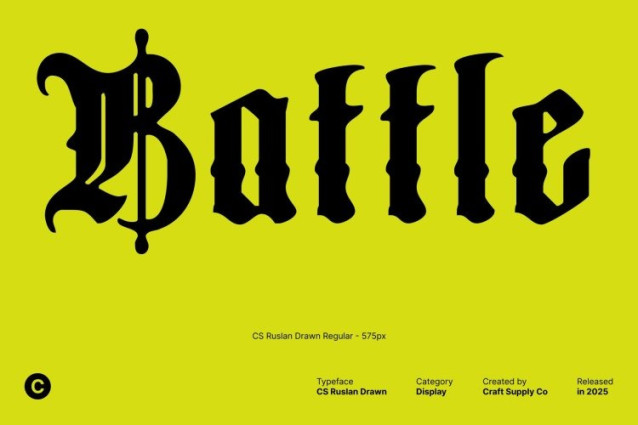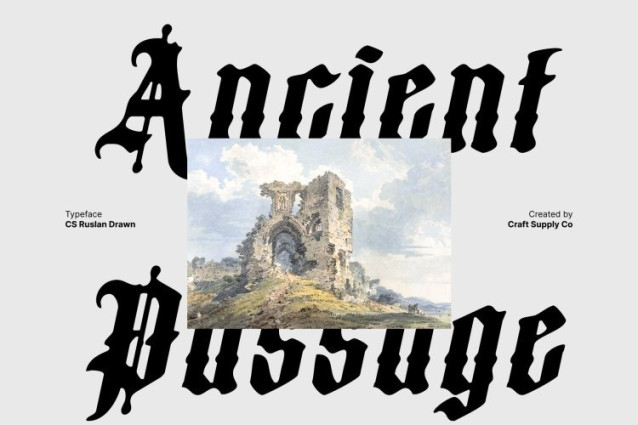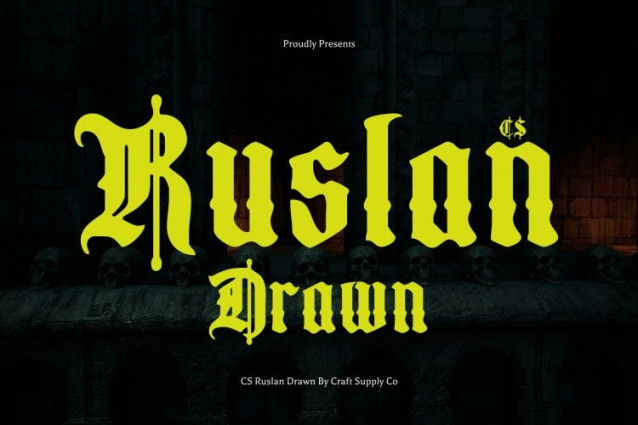
CS Ruslan Drawn Font
CS Ruslan Drawn Font This is a decorative Old English display font that features intricate ornamental strokes and bold medieval-inspired shapes. Its strong, commanding forms convey historical gravitas and visual authority, making it perfect for designs that require a dramatic, gothic presence.
Hand-Drawn Texture for Artistic Expression
The subtle drawn effect adds a handcrafted texture to each letter, enhancing depth, personality, and artistic nuance. This handmade quality softens the rigid medieval structure while preserving its dramatic impact, giving the font a unique, expressive, and visually engaging character.
Versatile for Titles, Posters, and Branding
This font excels in display applications such as titles, gothic posters, editorial layouts, and branding projects. Its combination of ornamental heritage and creative hand-drawn detailing ensures that it commands attention while remaining visually distinctive.
Perfect for Gothic, Heritage, and Creative Designs
Whether used in cultural publications, historical-themed projects, or edgy artistic branding, balances tradition with modern creativity. It delivers a bold, mysterious, and expressive typographic voice that adds sophistication, drama, and handcrafted charm to any project.